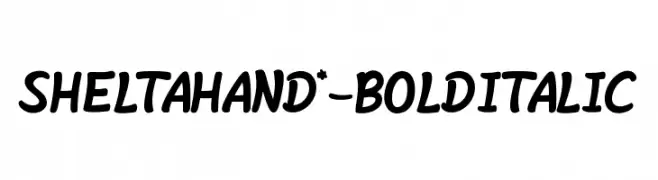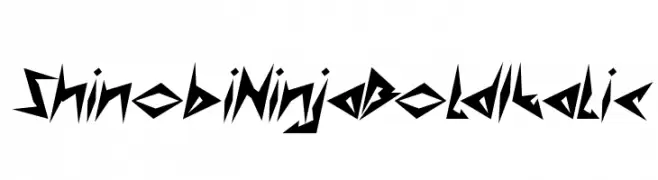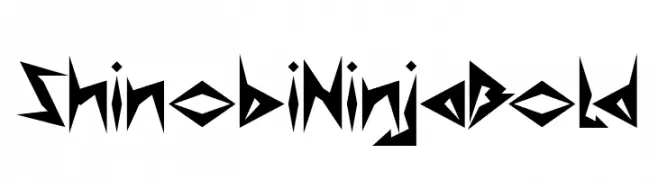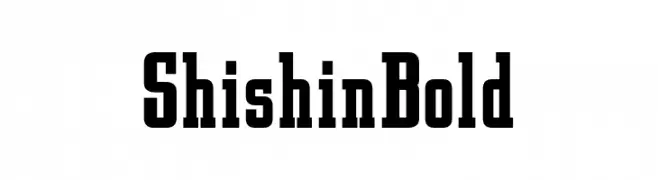
A bold, italicized handwritten font with smooth curves and a playful style.
A bold, hand-drawn font with an energetic, graffiti-inspired style.
A bold, italic, brush-style font with dynamic strokes.
A bold, angular font with a dynamic, ninja-inspired design.
A bold, angular, and dynamic font with a geometric style and italic flair.
A playful handwritten font with rounded, consistent strokes and a casual vibe.
A playful, handwritten font with rounded, consistent strokes and a casual style.
A bold, vintage-style font with strong, uniform strokes and a commanding presence.
A bold, playful handwritten font with thick strokes and a casual style.
A bold, cursive font with a flowing, handwritten style.